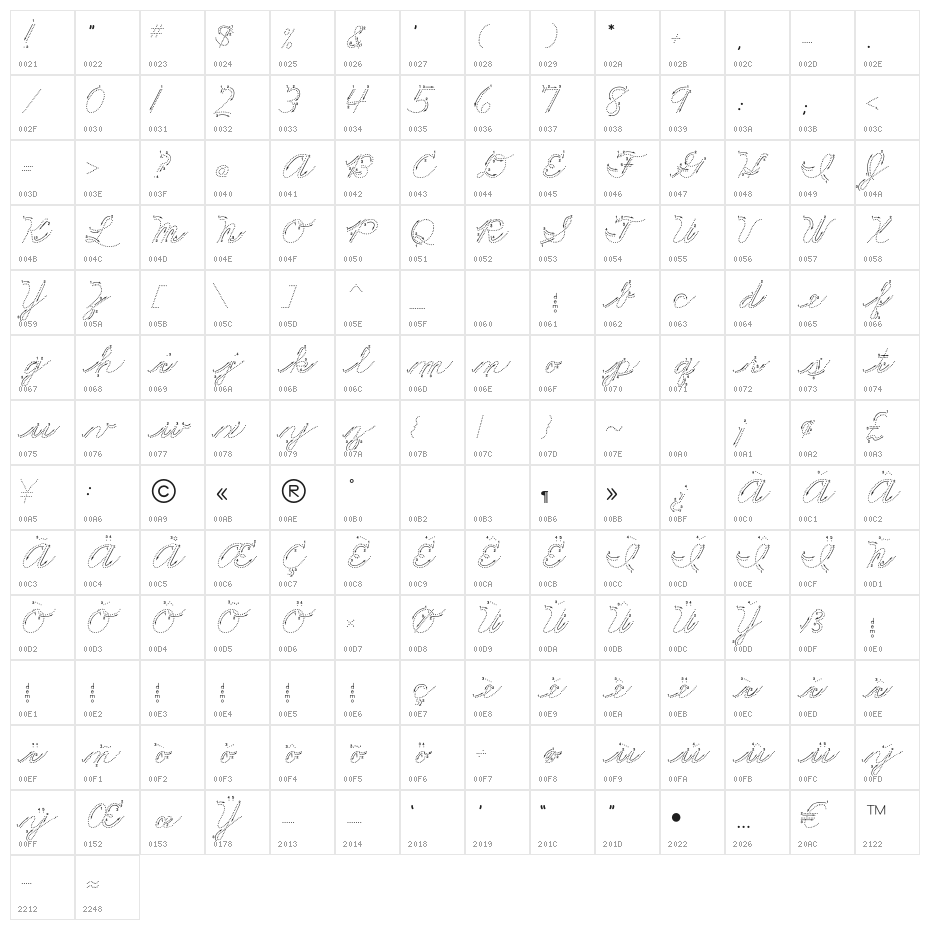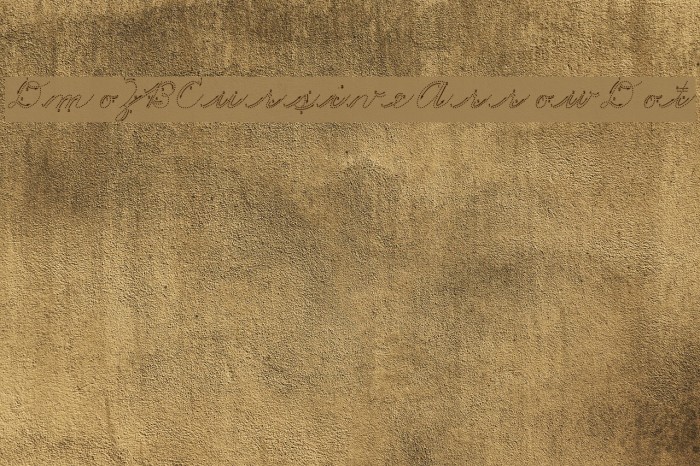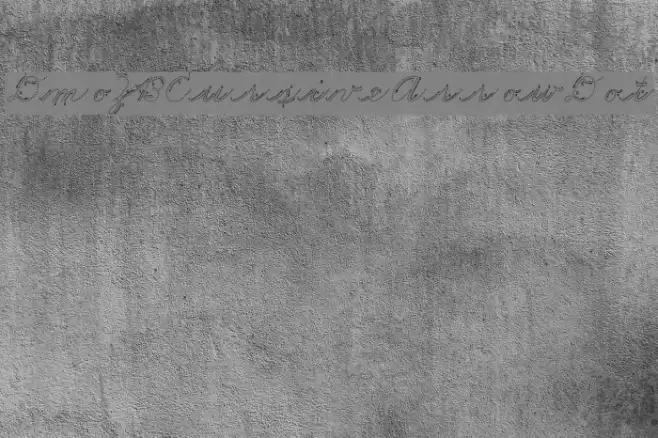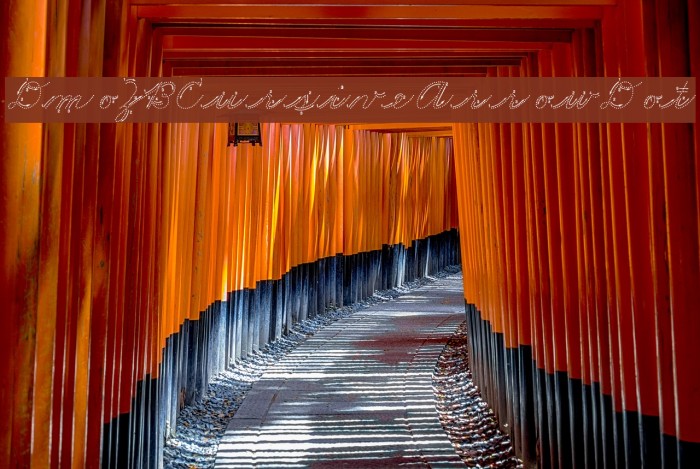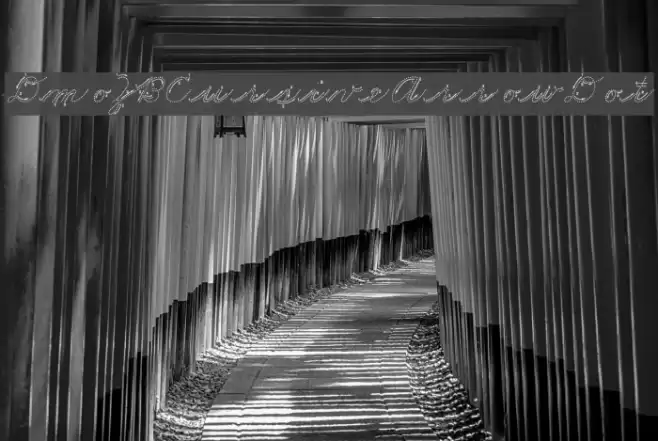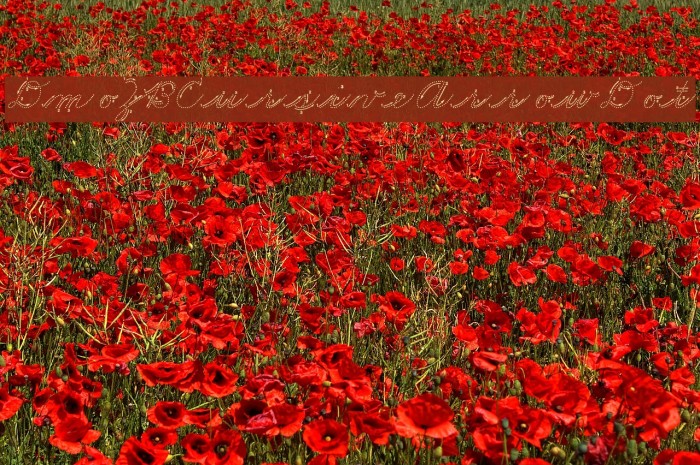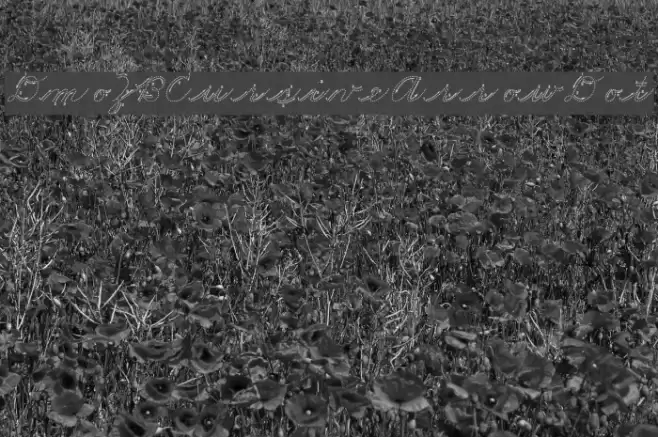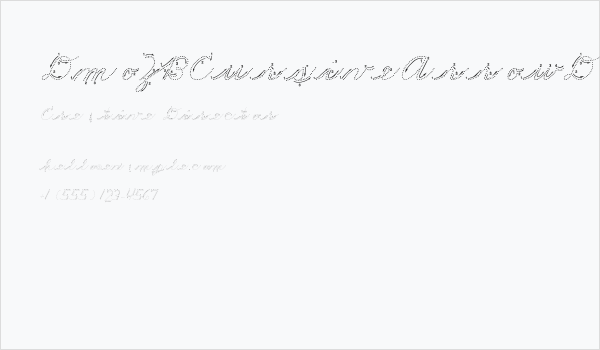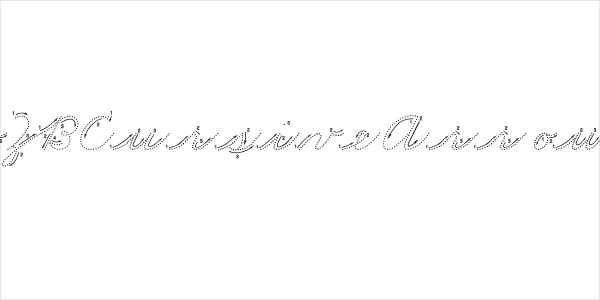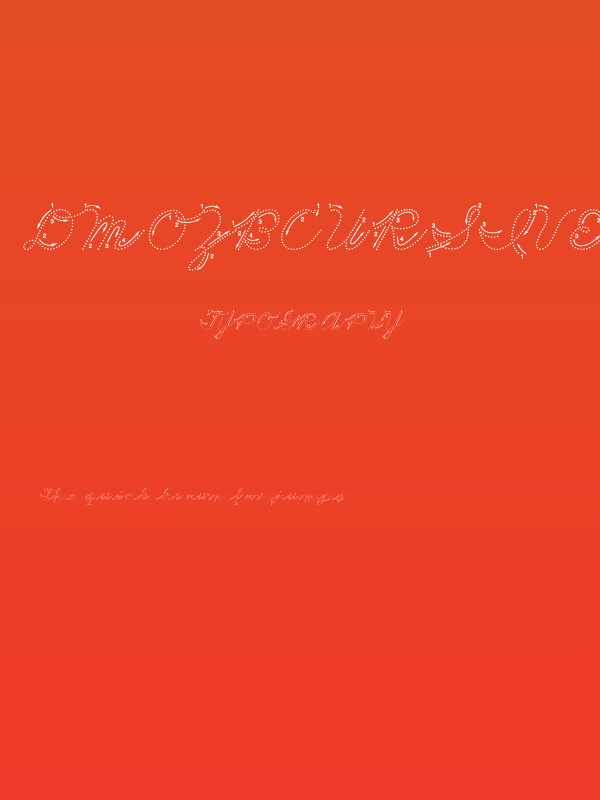
DmoZBCursiveArrowDot Font
DmoZBCursiveArrowDot Description
This font features a playful and instructional design, with each character composed of dotted lines and directional arrows indicating the stroke order. The cursive style is fluid and connected, mimicking traditional handwriting exercises. Each letter and number is carefully crafted to guide learners in forming the characters correctly. The inclusion of special characters maintains the same dotted and instructional style, making it a comprehensive tool for educational purposes.
| Overall Style | Educational, Instructional |
| Use Case | Educational materials, Handwriting practice |
| Proposed Projects | Ideal for educational materials, handwriting practice sheets, and instructional guides for learning cursive writing. |